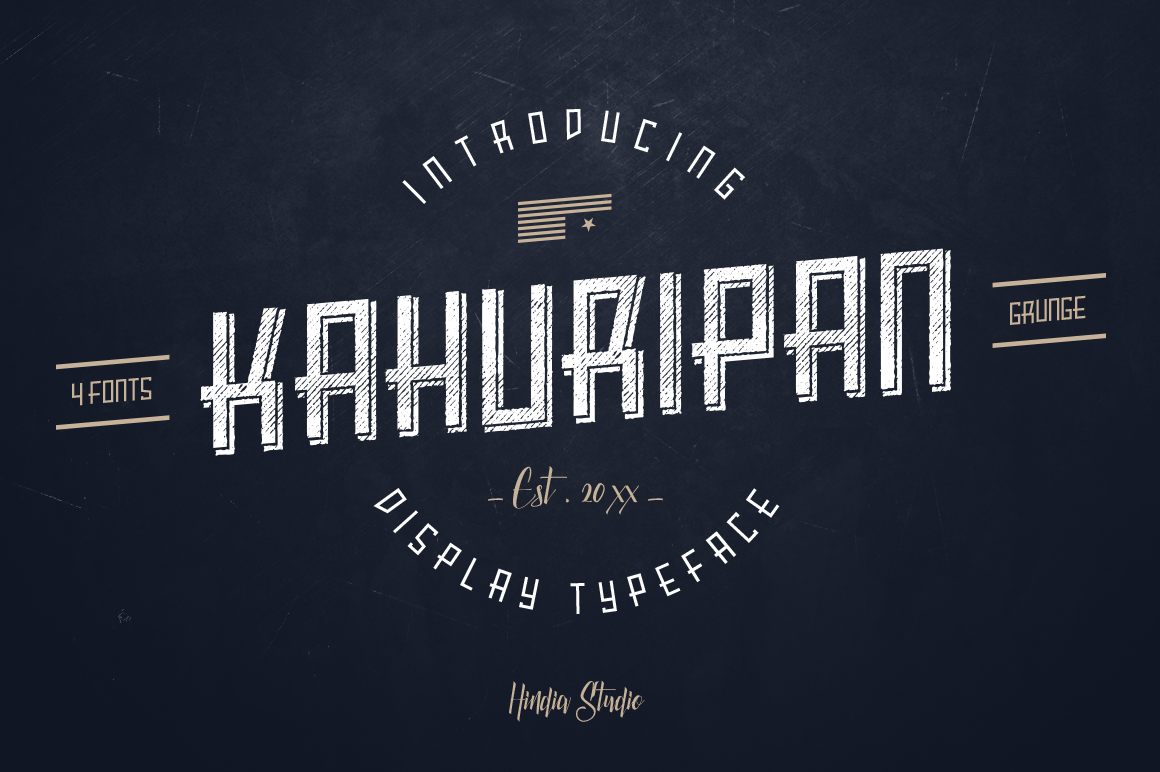
Kahuripan Font - 4 Styles
KAHURIPAN | Crafted with passion
Add some thrills to your designs with Kahuripan! A bold/clean/vintage/grunge style font set, perfect for creating headline display text very easy. Kahuripan has its own explicit charisma; perfect for Logos, Advertising, Music Industry, Apparel Design, Labels, Signage, Etc.
- Kahuripan 3D
- Kahuripan 3D Grunge
- Kahuripan Shadow
- Kahuripan Shadow Grunge
- Uppercase/Lowercase